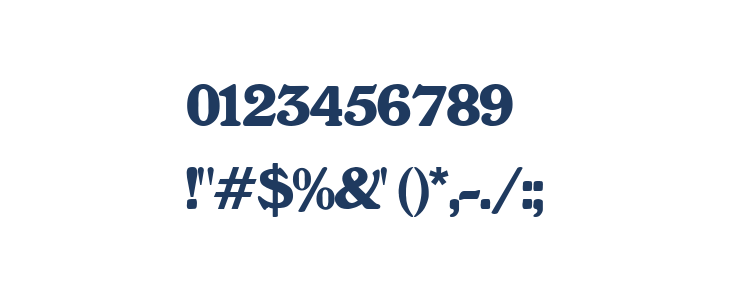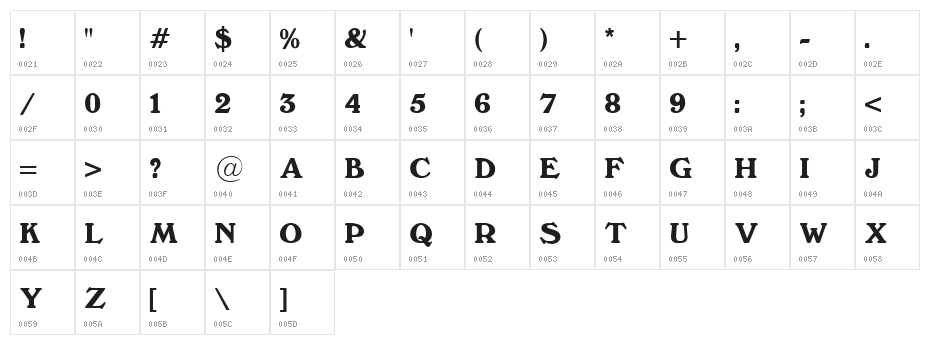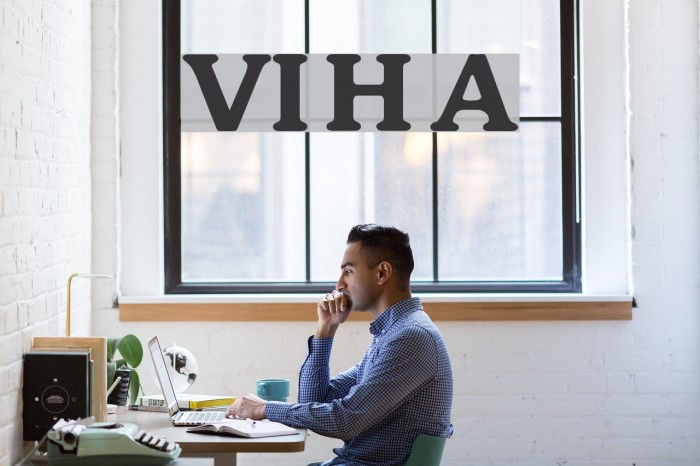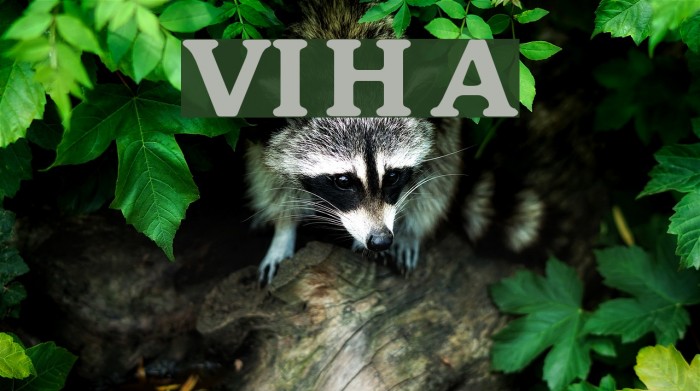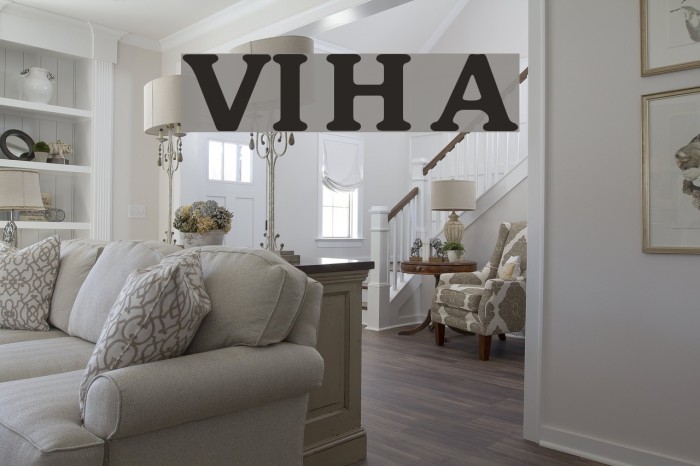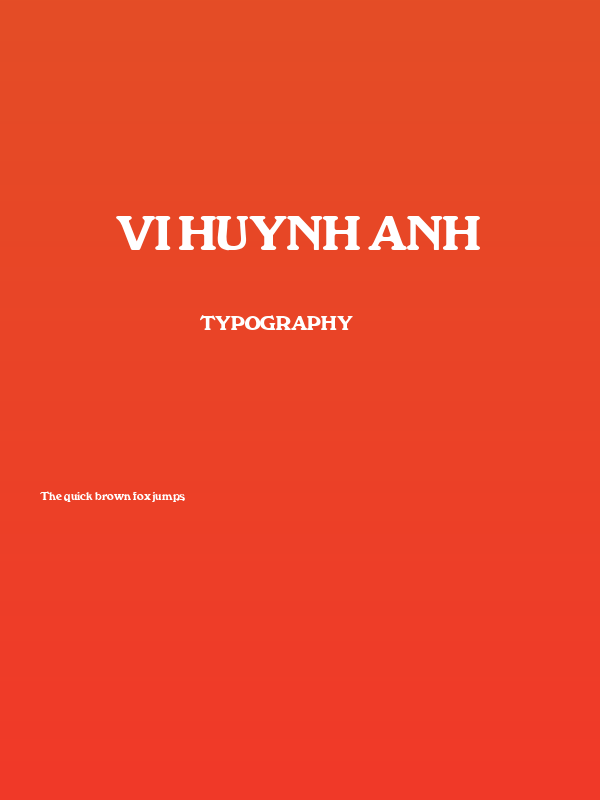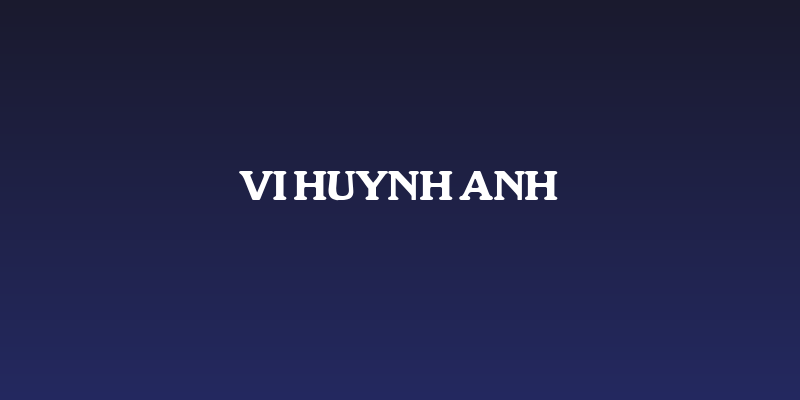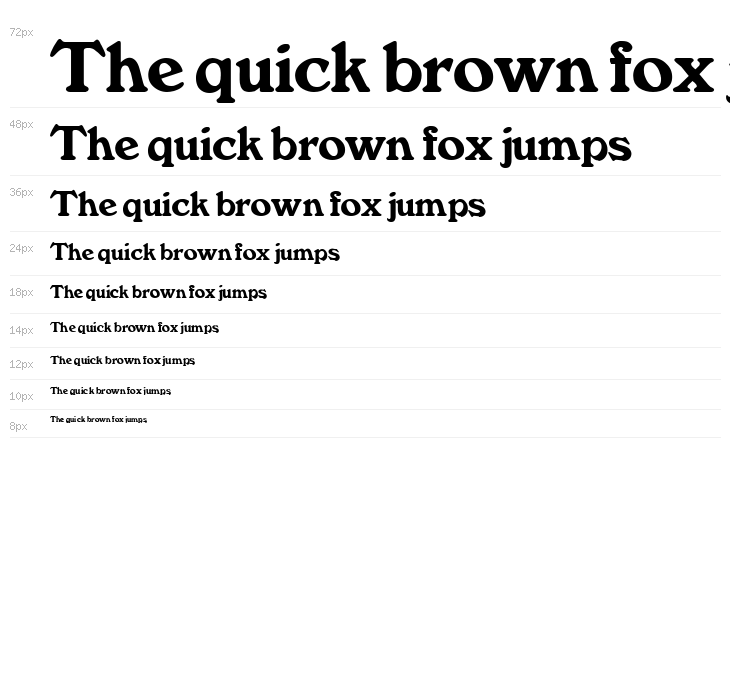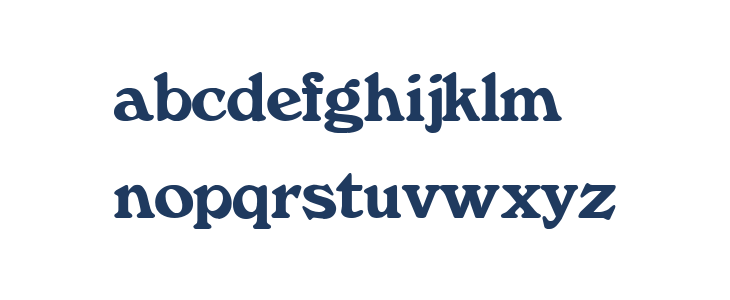
VI Huynh Anh Font
VI Huynh Anh Description
This font features a bold and robust design with strong, thick strokes that give it a commanding presence. The serifs are pronounced, adding a touch of classic elegance while maintaining a modern appeal. The uppercase letters are slightly wider, providing a sense of stability and strength. The lowercase letters are well-balanced, with a consistent stroke width that enhances readability. The numerals are clear and distinct, making them suitable for various applications. Special characters are designed with the same attention to detail, ensuring they integrate seamlessly with the rest of the font. Overall, this font combines traditional serif elements with a contemporary twist, making it versatile for both formal and creative projects.
| Use Case | Headlines, Logos, Editorial design |
| Proposed Projects | Ideal for branding, editorial design, book covers, and formal invitations. |